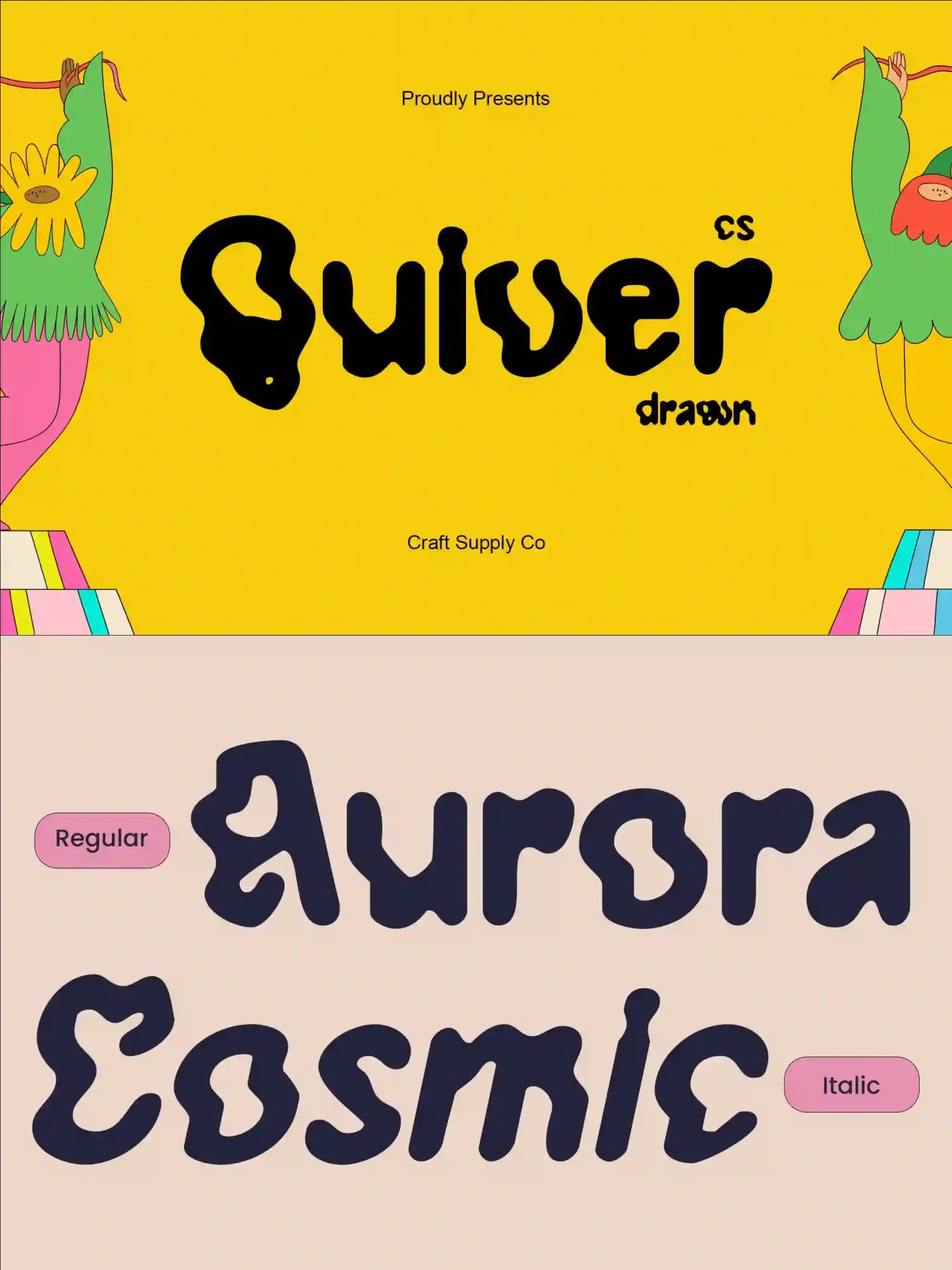
CS Quiver Drawn – Trippy Font: Psychedelic Display Font with Swirling Energy and Hand-Drawn Curves
Unconventional and Expressive
Thrives on breaking tradition with its swirling, unconventional curves. Designed to capture attention, this psychedelic display font radiates boldness and creativity, making it the perfect choice for projects that demand a striking and expressive typographic voice.
Vibrant Hand-Drawn Energy
Enhanced with a drawn texture, this font feels alive and handcrafted. Each letter carries a dynamic movement, as if sketched with energy and imagination. This artistic detail gives the font depth and authenticity, amplifying its playful and psychedelic spirit.